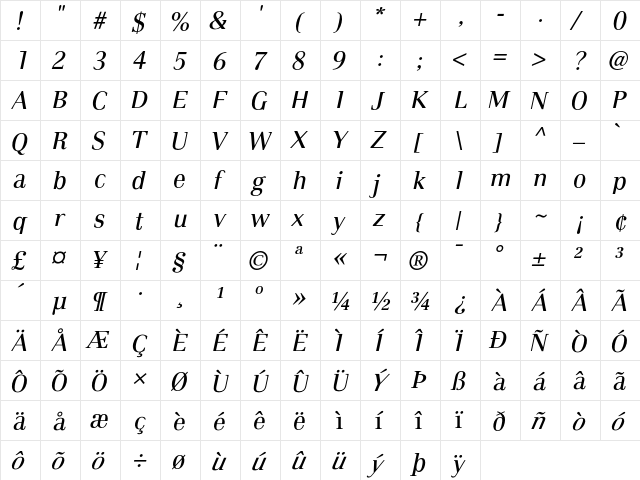
NEWCENTitalics Roman
Design Context for NEWCENTitalics Typeface
NEWCENTitalics offers clean, dependable letterforms without strong stylistic allegiance, making it a practical choice for designers who need flexibility. Its italic angle brings a sense of urgency and motion to the letterforms.
Pro Tip: Use NEWCENTitalics for emphasis, pull quotes, and subheadings where its slanted energy can add rhythm to the layout.